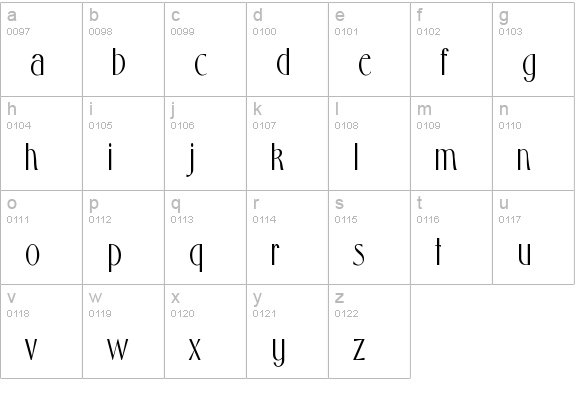
Wright-Condensed Normal is the standard, neutral, condensed-width variant in the Wright typeface family \xE2\x80\x94 well suited to general body text, paragraphs, and standard typographic work.